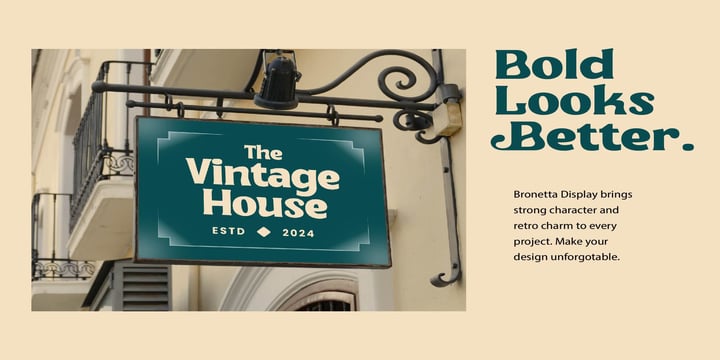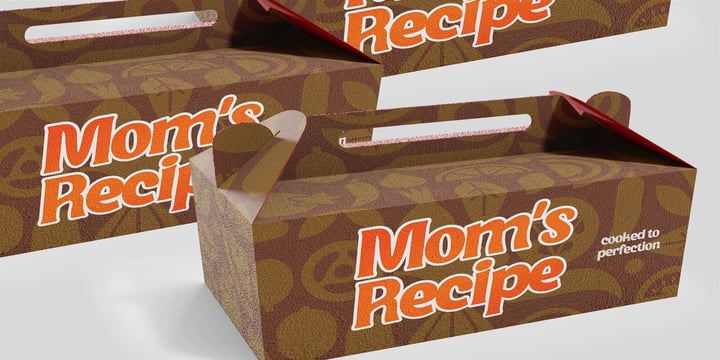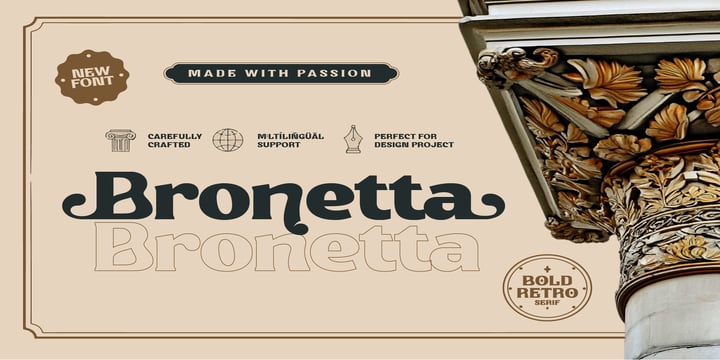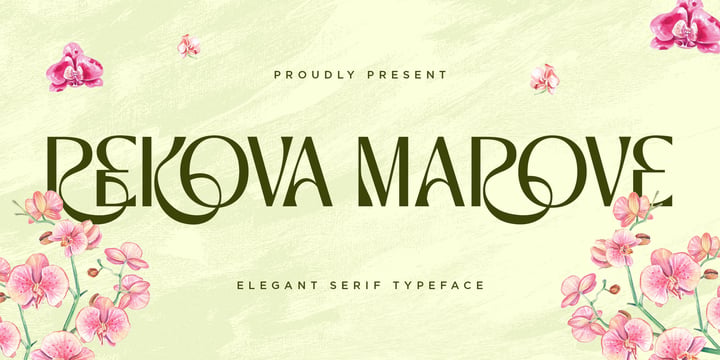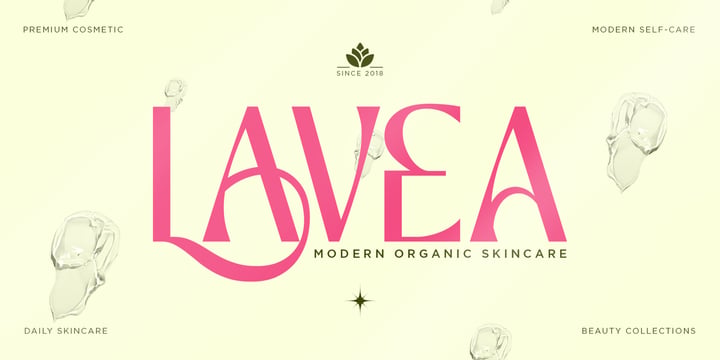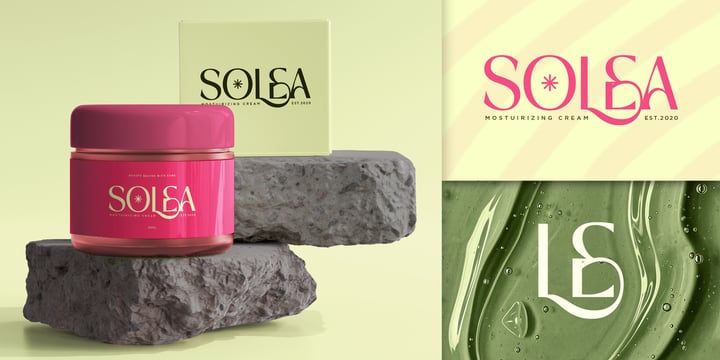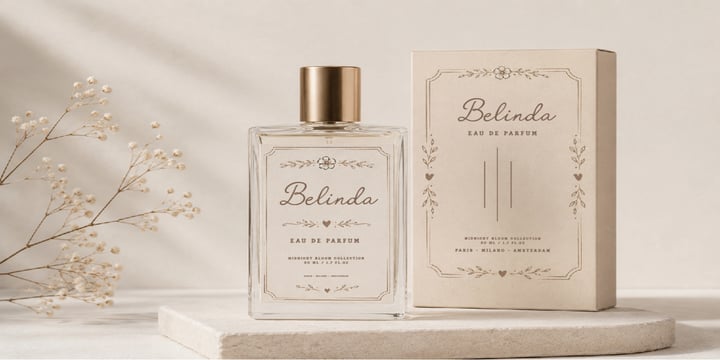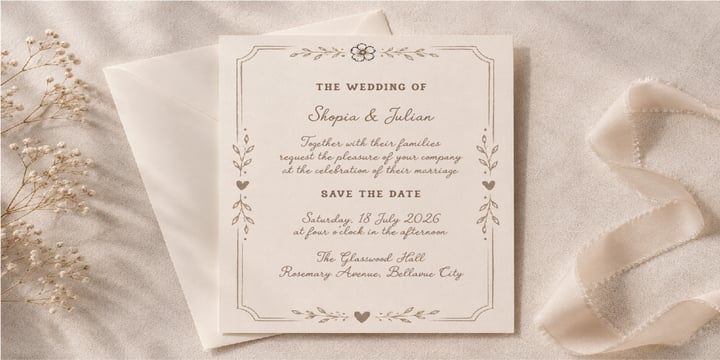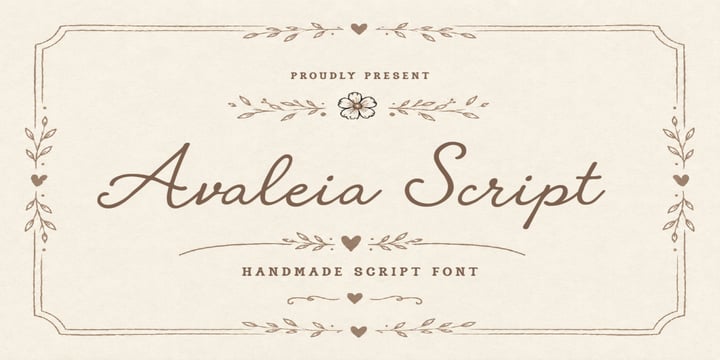
Sofyananto Sofyananto
Based in Indonesia, I am an independent type designer and the creative force behind Sototive. My journey into typography began with a deep fascination for how letterforms carry emotion and dictate the visual tone of communication. This passion drove me to transition from general graphic design to the highly specialized world of type design, where I focus on creating retail fonts that combine organic artistry with professional digital engineering.
My design philosophy is rooted in versatility and functional aesthetics. I believe that a great typeface should not only be visually striking but also highly adaptable for modern creators. Whether I am drawing inspiration from the fluid elegance of traditional calligraphy or the structured impact of retro and modern editorial layouts, my goal is always to create fonts that empower designers to tell compelling stories. I pay meticulous attention to technical execution, ensuring that every glyph is optimized with clean vectors, precise kerning, and robust multilingual support.
Sototive’s debut collection showcases this balance between diverse styles. Standout projects include Alista Script, a charming handmade monoline script designed to bring a warm, personal touch to high-end branding and wedding stationery, and our upcoming bold display serif, which offers high-contrast, impactful letterforms tailored for contemporary packaging and bold headlines. As a solo designer, I take pride in overseeing every stage of development—from initial sketch to final font generation—delivering authentic and reliable typographic assets for global creative agencies and independent designers alike.